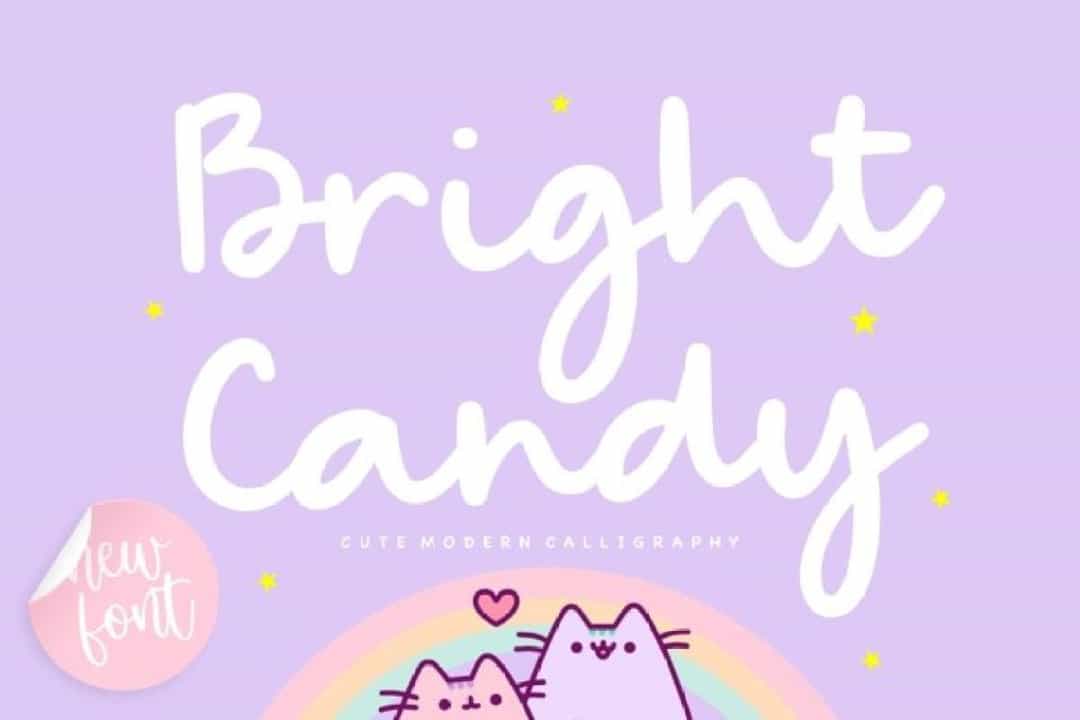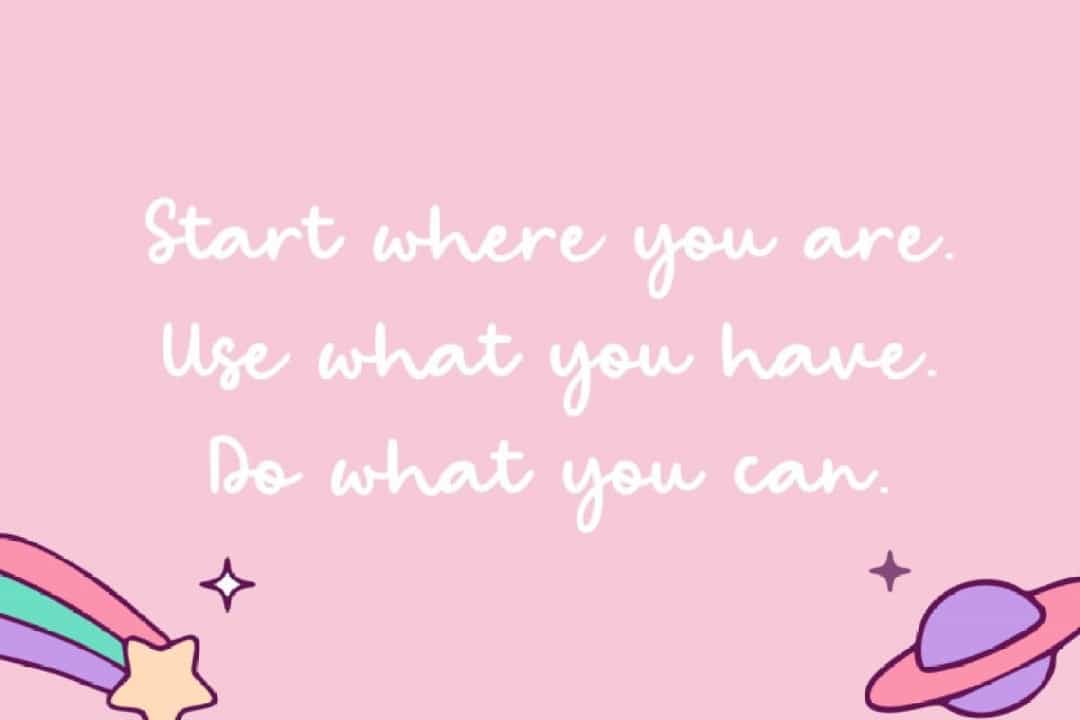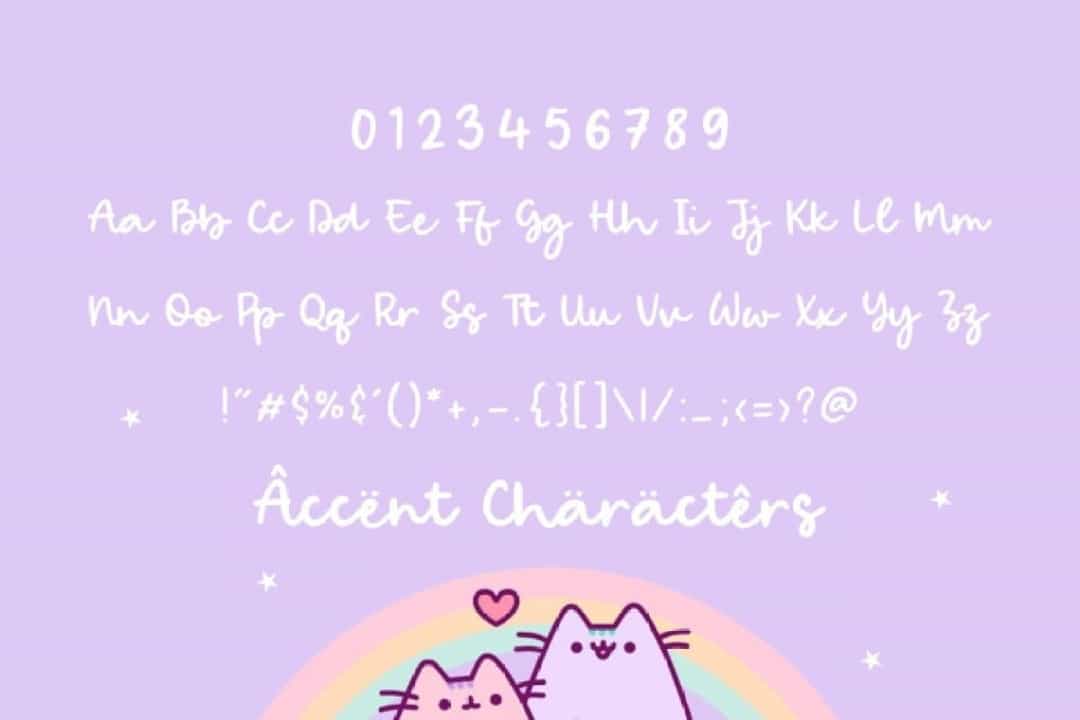
Bright Candy is a sweet contemporary large brush font with connected letters. It is ideal for use in branding, packaging, project, magazines wedding, social media or even to display text on top of the background. The font includes TTF; Bright Candy also supports the multilingual languages.